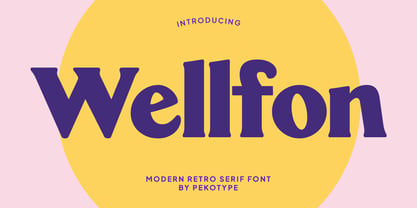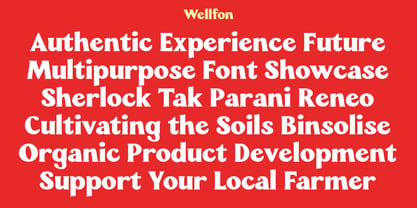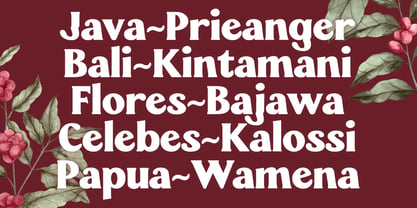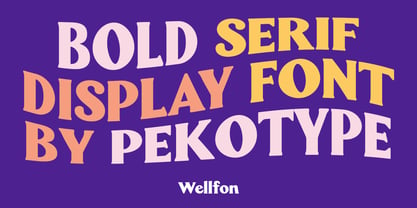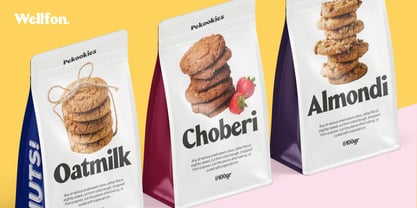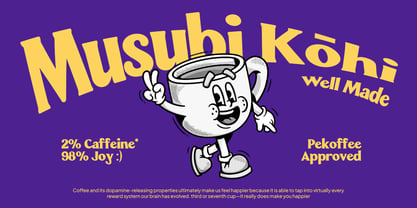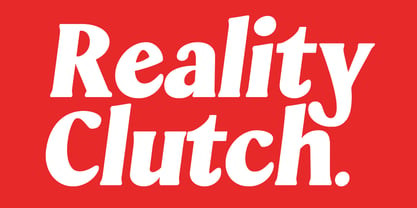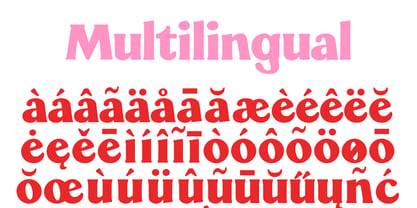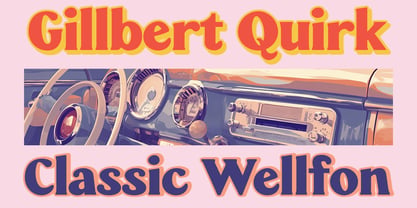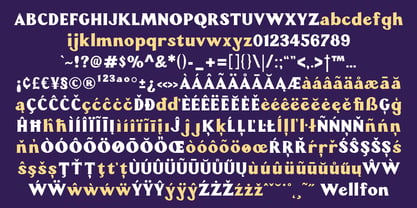
Wellfon
by Pekotype
The Wellfon Font Family was designed by Galang Bryan and published by Pekotype. Wellfon contains 1 styles. More about this family
Introducing WELLFON – where retro charm meets bold modern style! This powerful serif font elevates your brand, logos, packaging, and more. Wellfon's unique blend of vintage curves and sleek lines brings any project a fresh, energetic vibe. Whether you're crafting a striking brand identity or adding flair to packaging, Wellfon delivers a bold, confident look that stands out. With its timeless appeal and versatile design, Wellfon is your go-to choice for making a lasting impression. Ready to take your designs to the next level? Let Wellfon do the talking!
Designers: Galang Bryan
Foundry: Pekotype